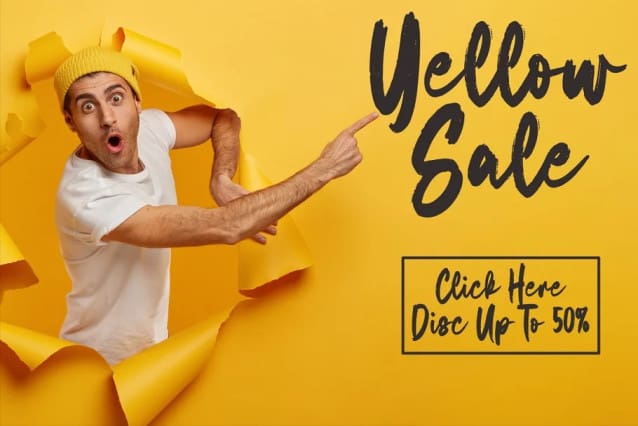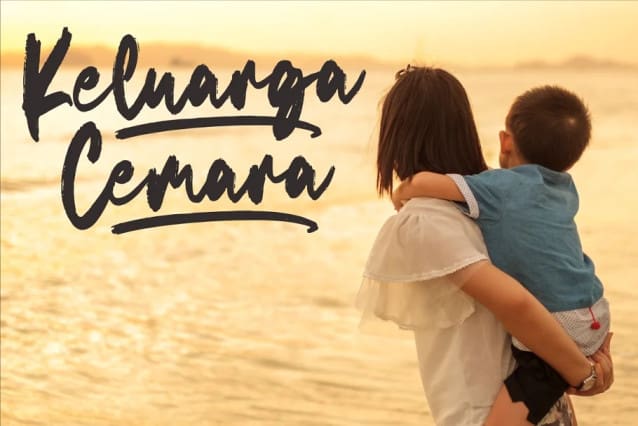
Savanna Brush Font
Savanna Brush Font, It features ligatures characters that will take your projects to the next level! This font is PUA code which means you can easily access all the glyphs that are full of brush! It also features many special features including glyphs. font designs that are made for various vector designs, printing such as digital wedding blogs, online shops, social media, while printing can be used in the field of product clothing, accessories, bags, pins, logos, business cards, watermarks and many others …